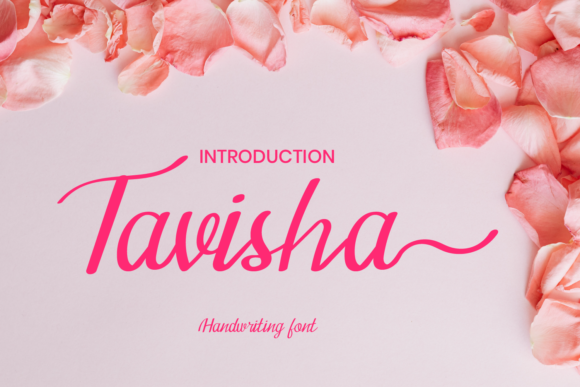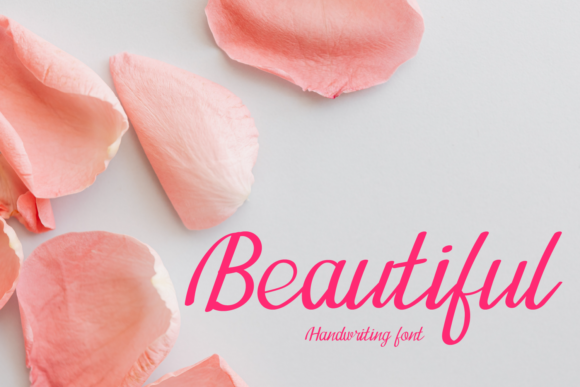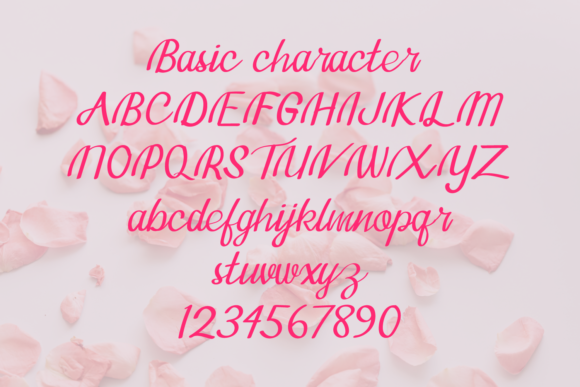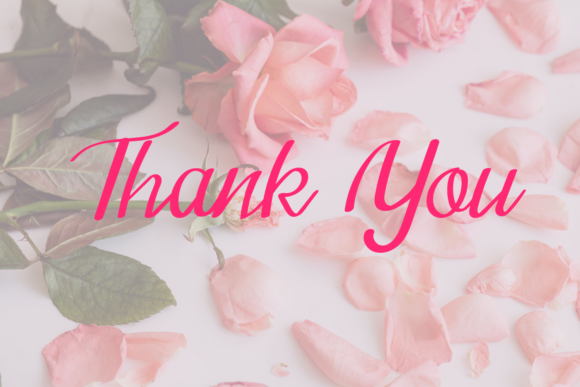
Tavisha Font
About Tavisha Font
Tavisha is a sweet and friendly handwritten font. Its relaxed style makes it fitting to a wide range of designs.This font is the perfect fit for all of your logos, branding, wedding invitations, beautiful stationary art, eye-catching social media posts, and cute greeting cards.